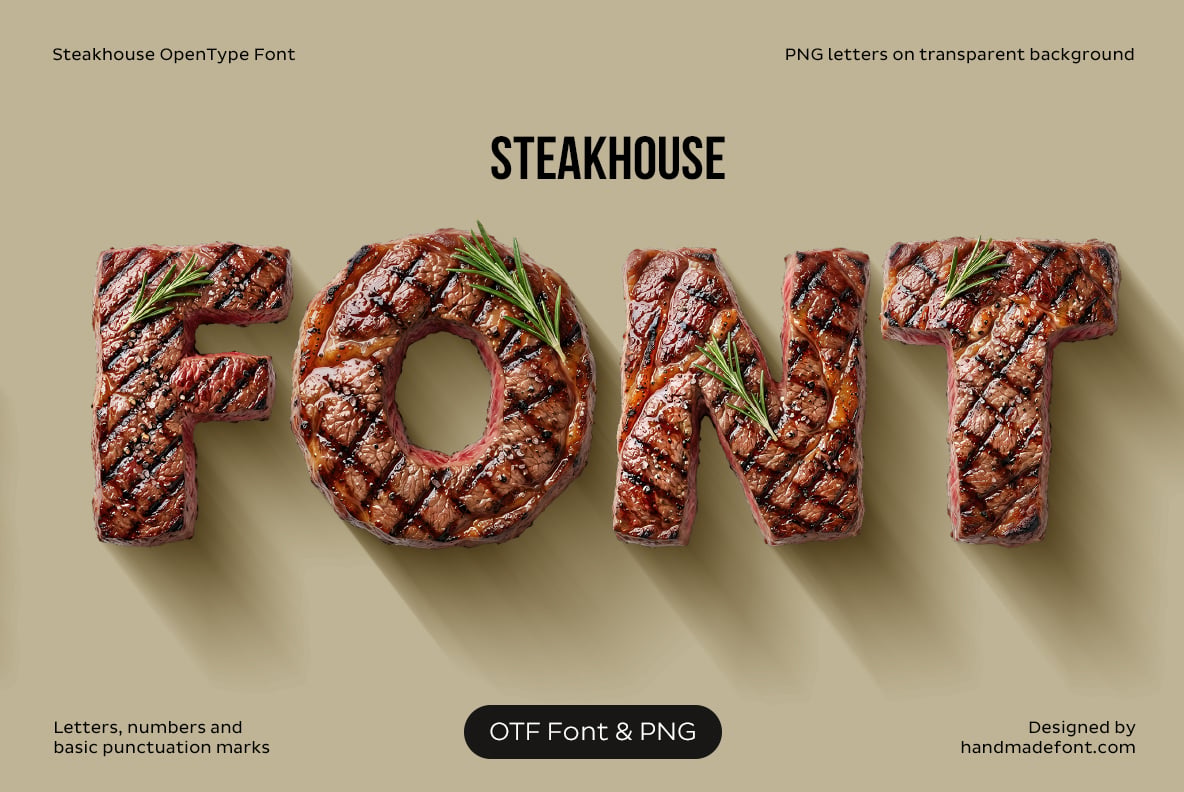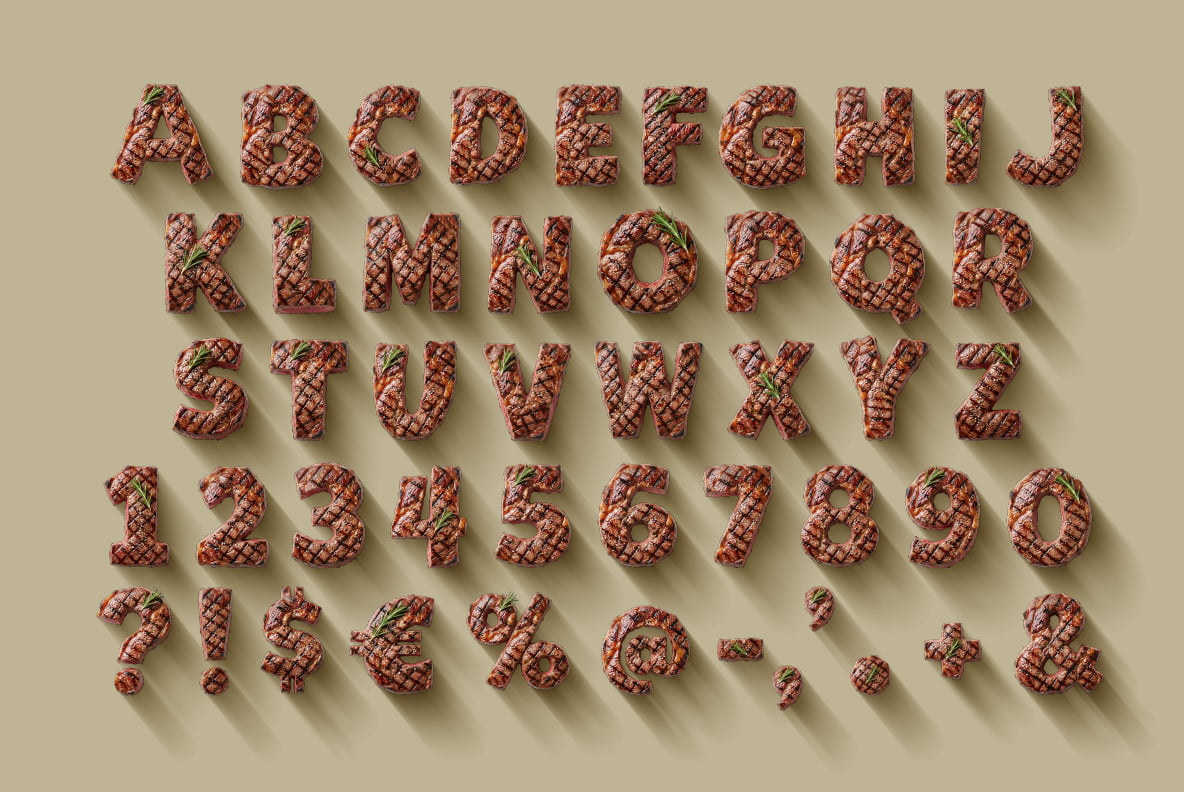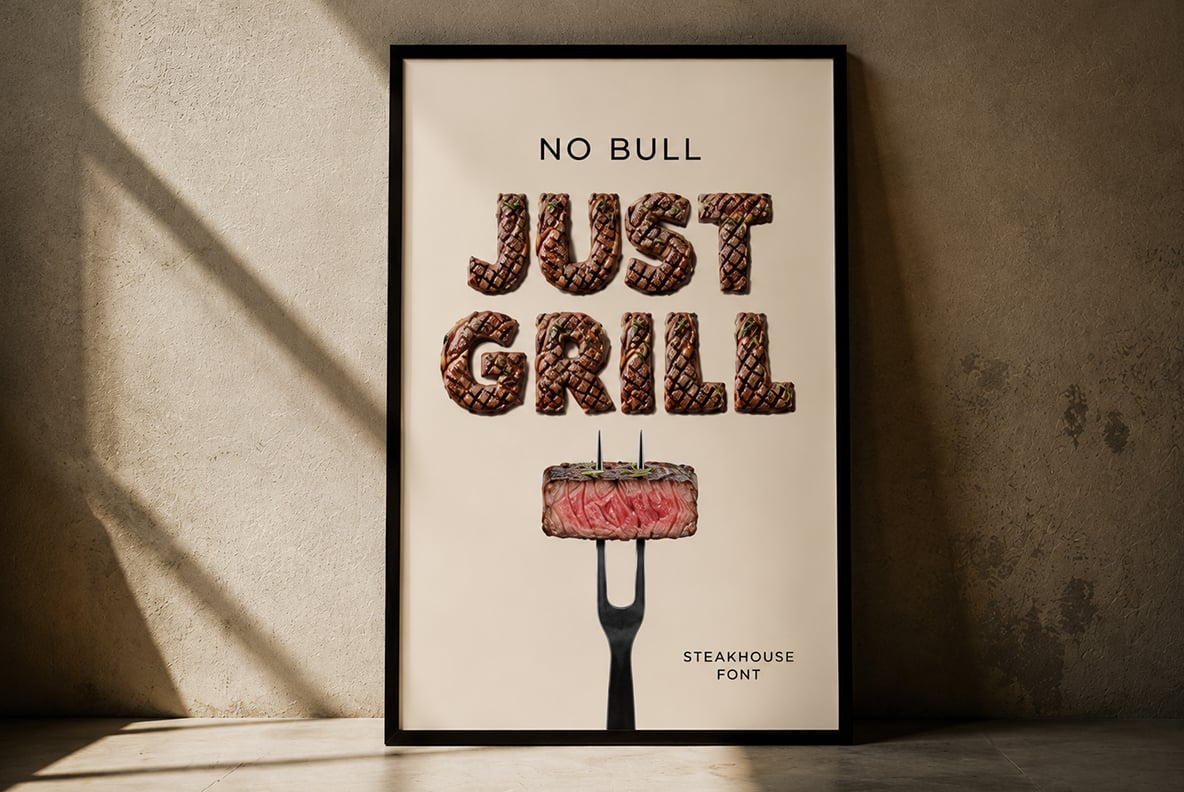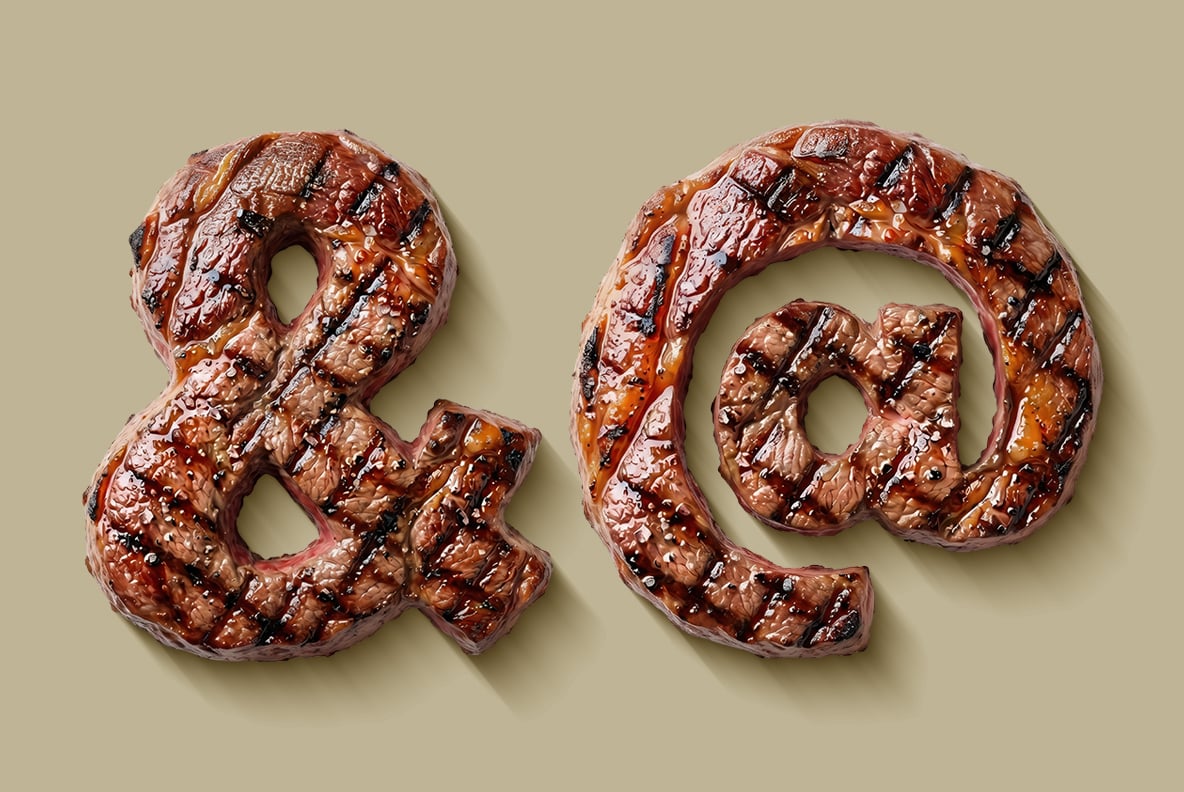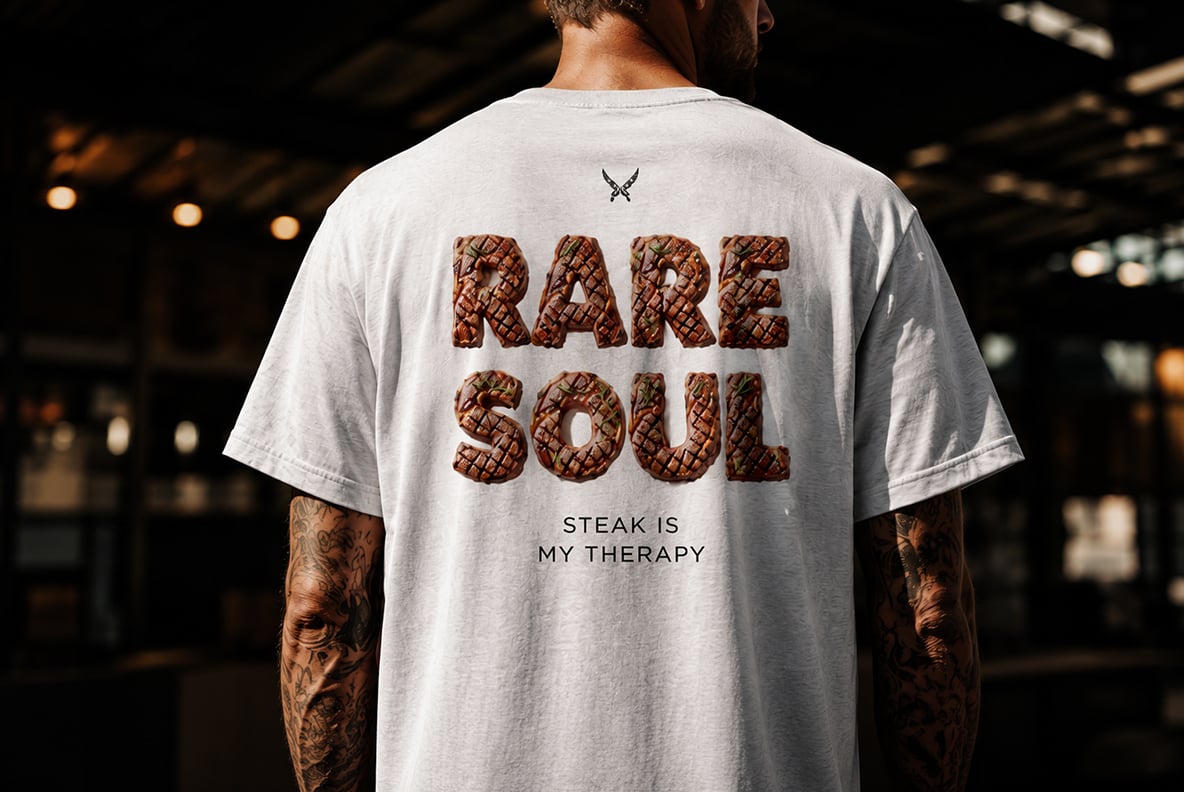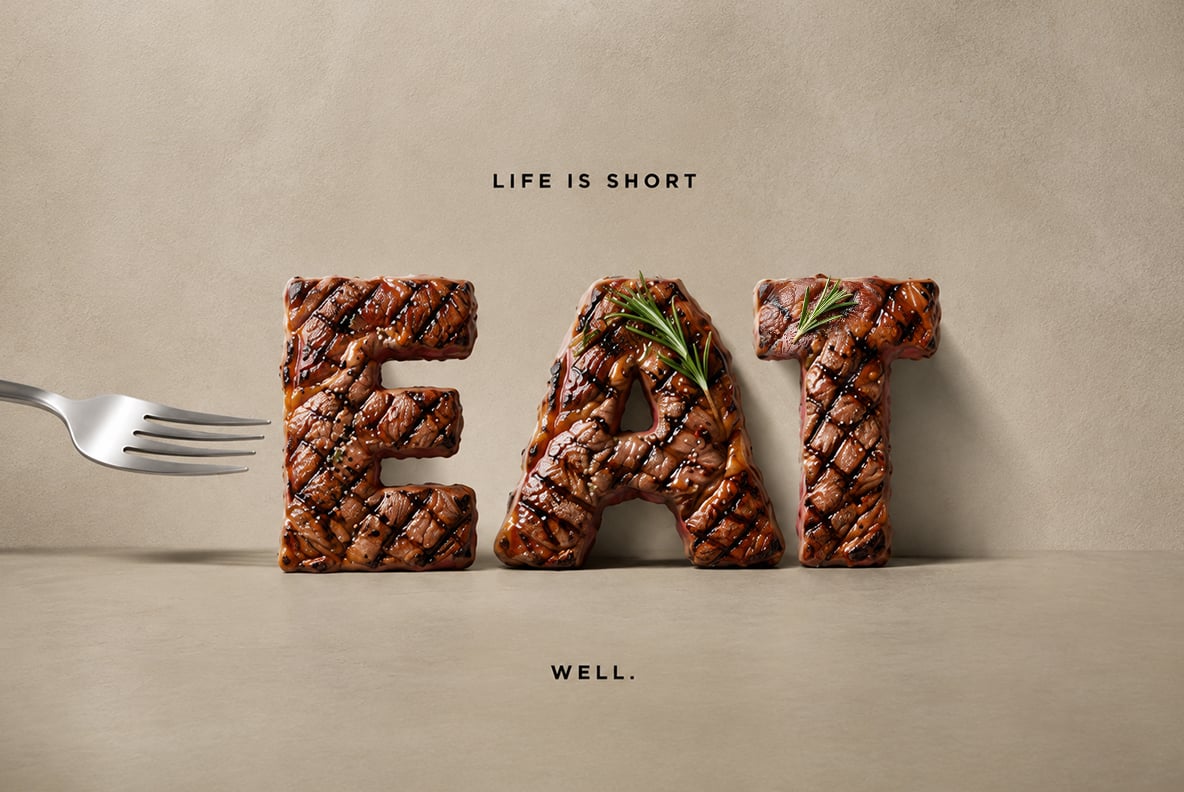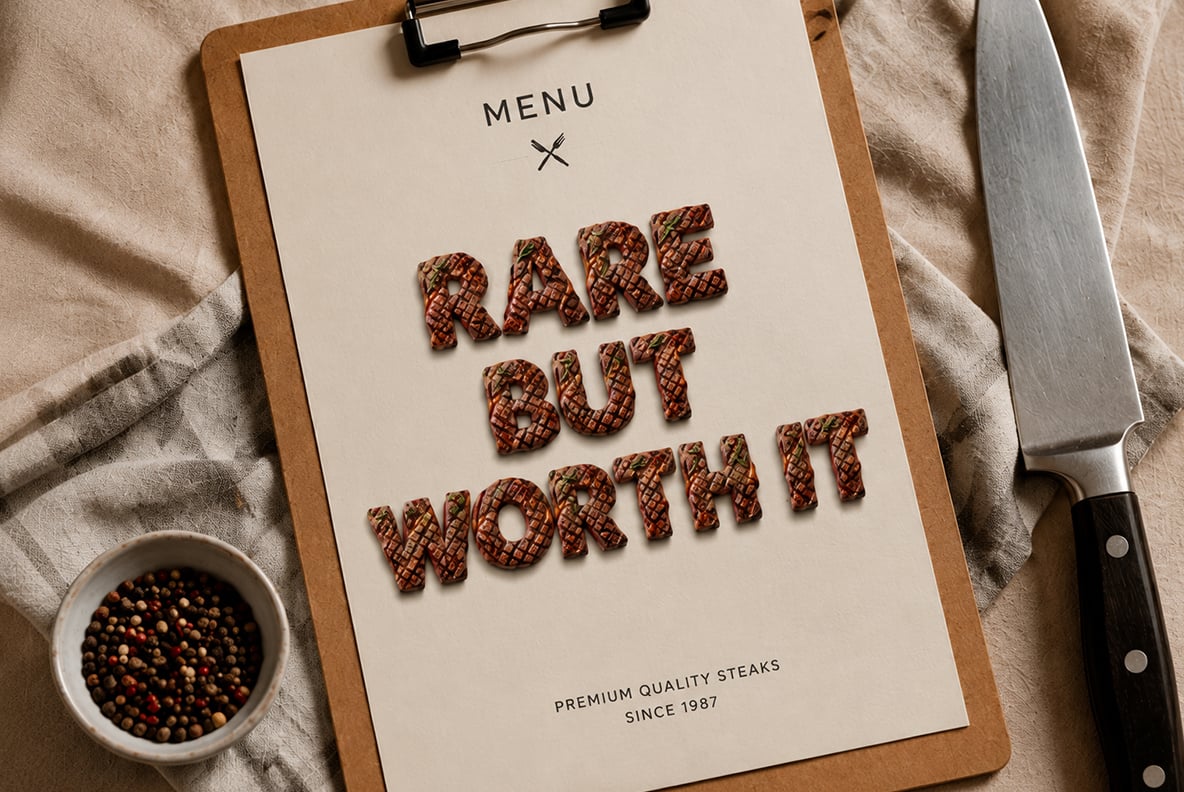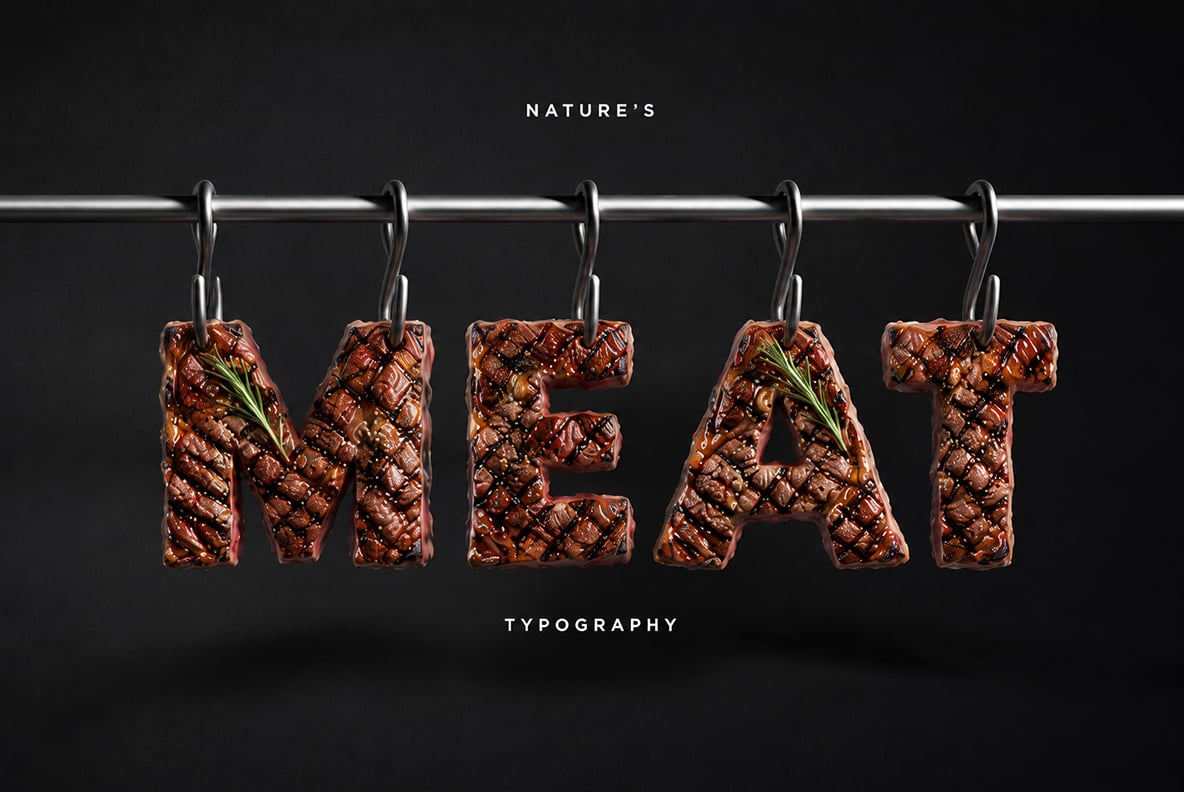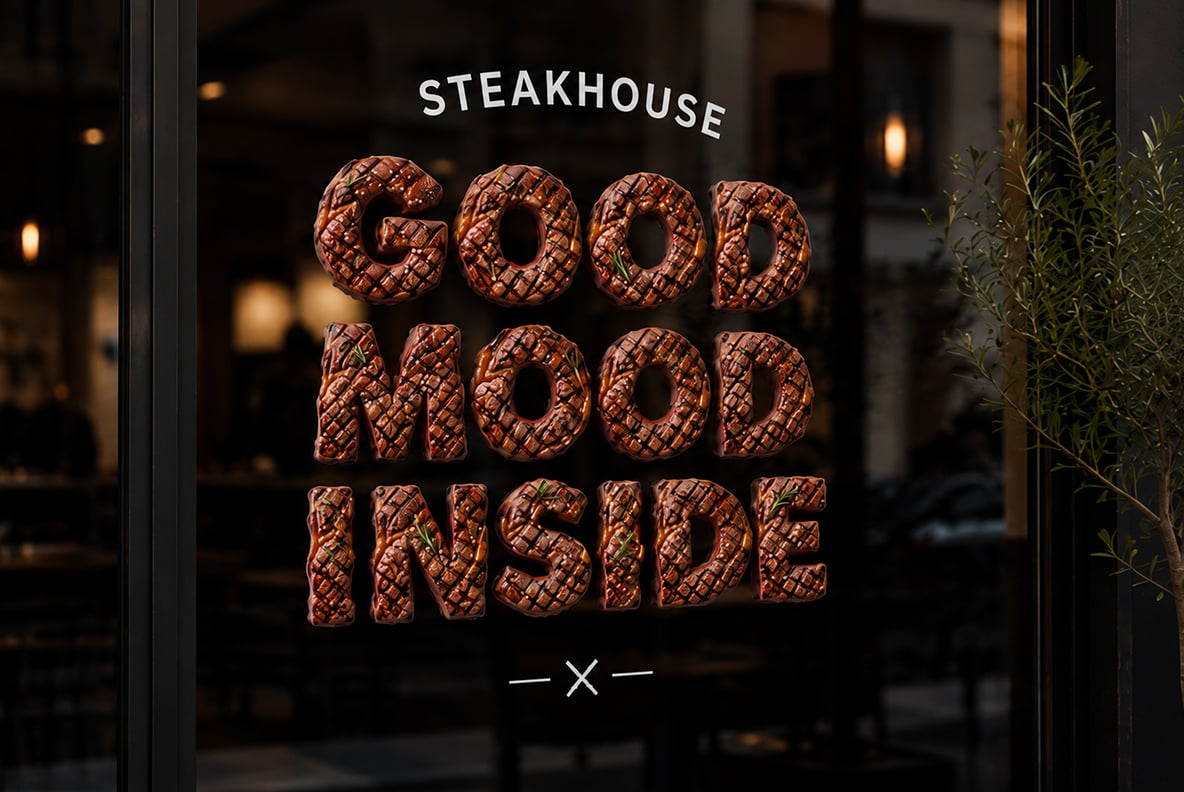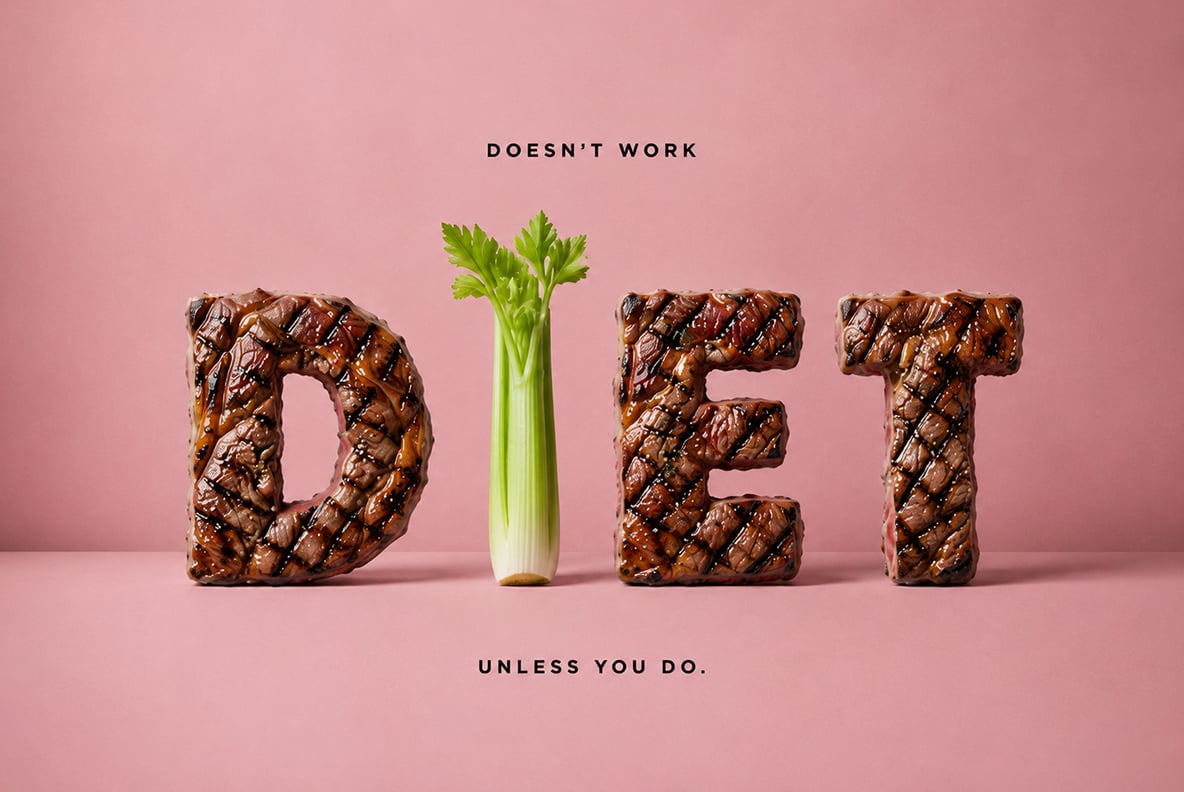
Steakhouse Font
Steakhouse Font is a bold, mouthwatering display typeface inspired by perfectly grilled premium steak. Every letter captures the rich texture, juicy surface, smoky grill marks, and appetizing details of expertly cooked beef, making your designs instantly unforgettable. This package includes a fully functional OpenType (OTF) font for effortless typing and a complete collection of high-resolution PNG letters with transparent backgrounds, allowing maximum creative flexibility. Perfect for restaurant branding, steakhouse menus, food packaging, BBQ promotions, posters, social media graphics, logos, advertising, and culinary-themed projects. Steakhouse Font brings delicious personality, bold character, and irresistible visual flavor to every design.
Others : ! ? - . ' $ € % & #